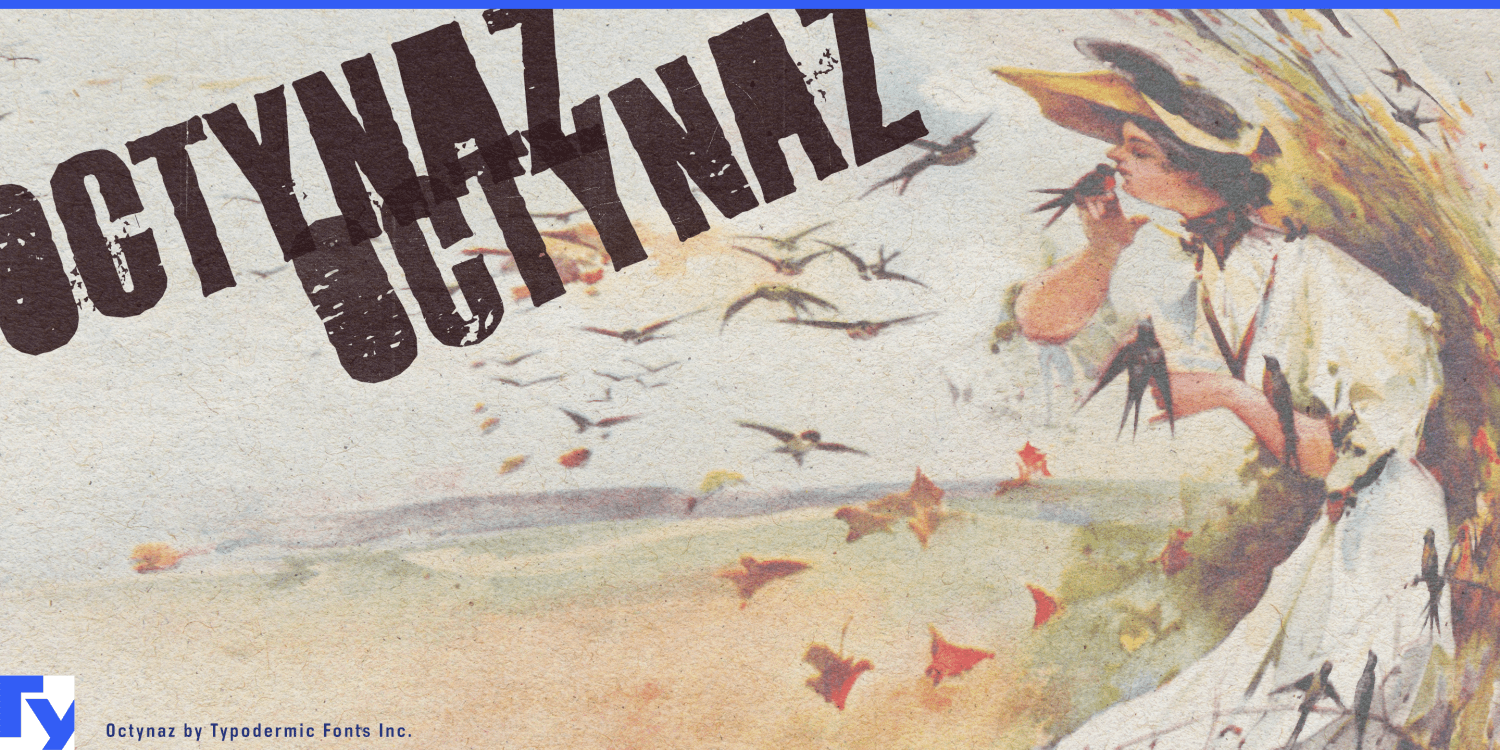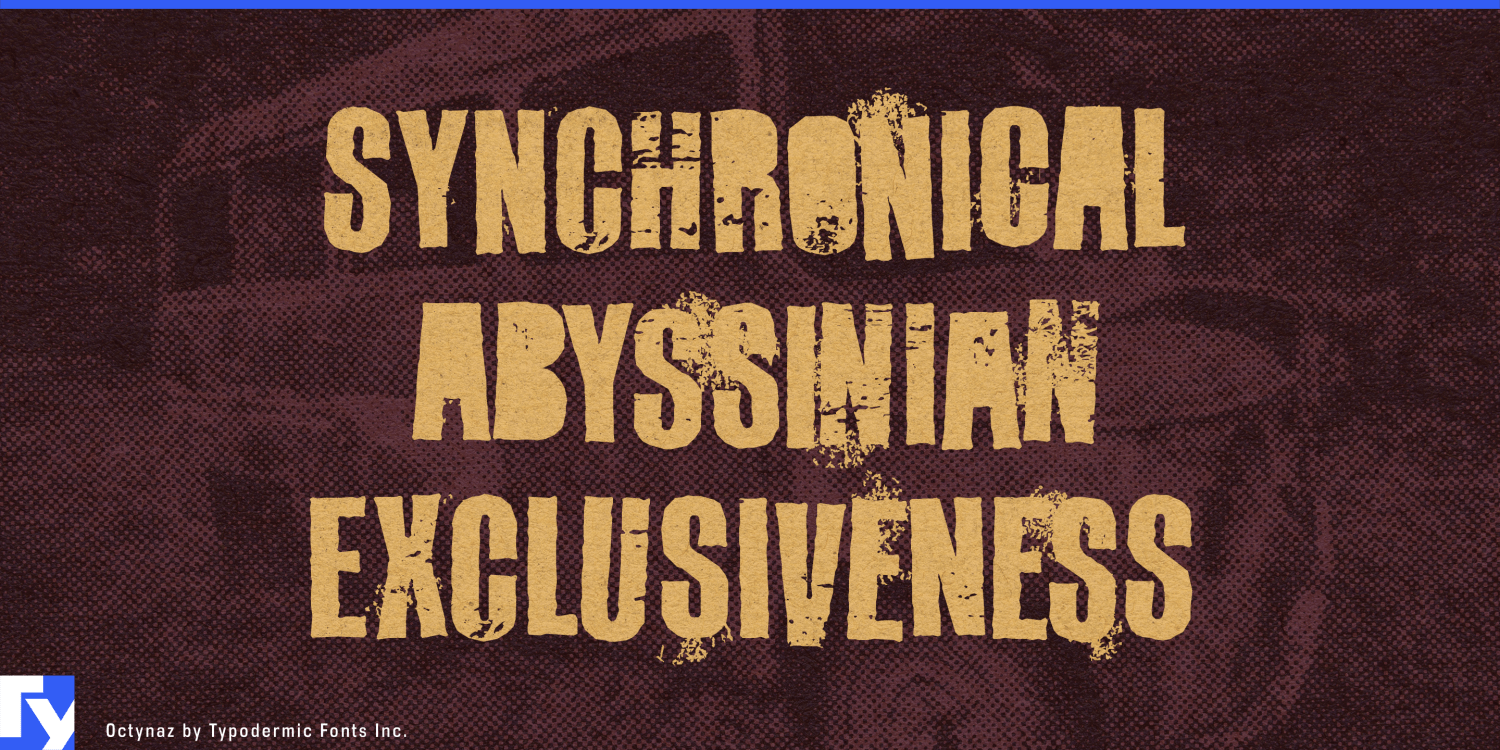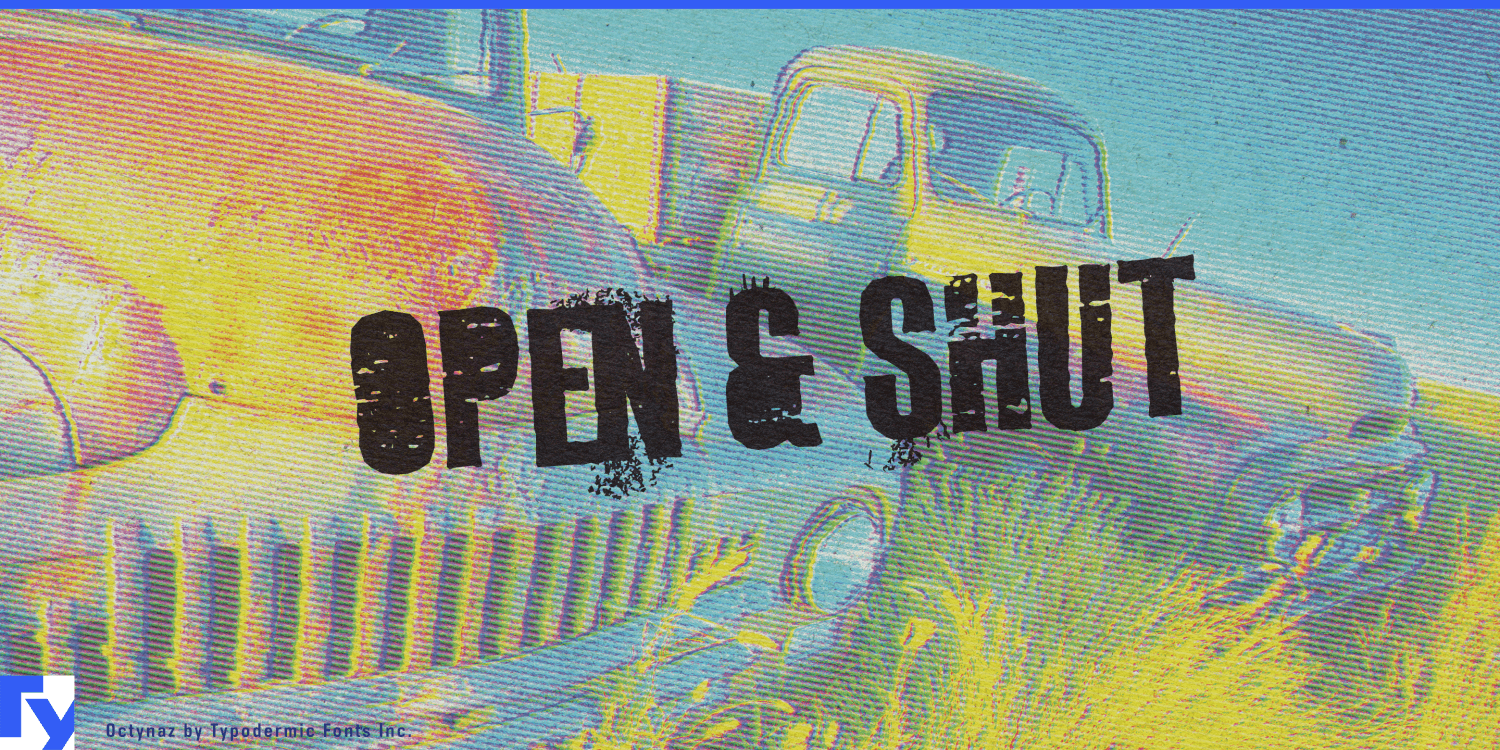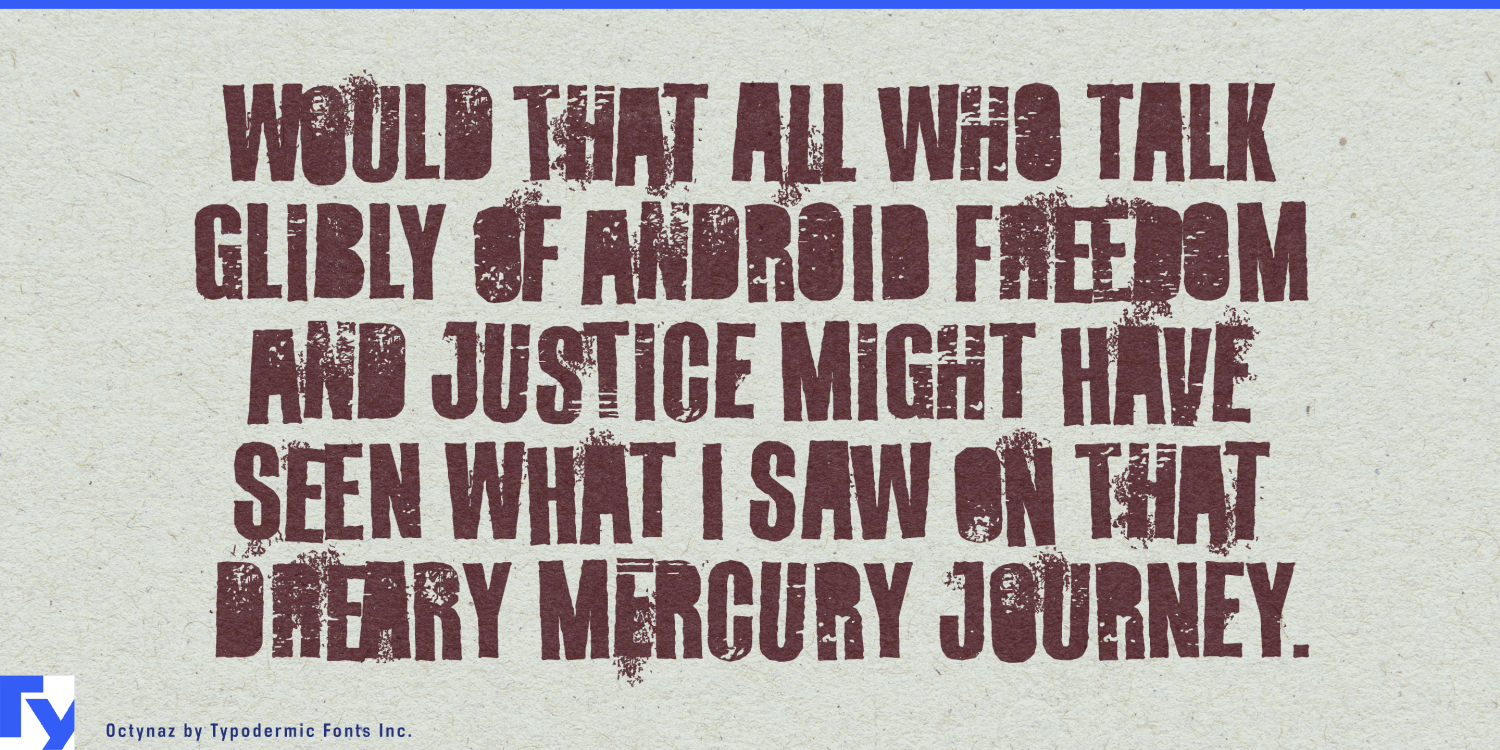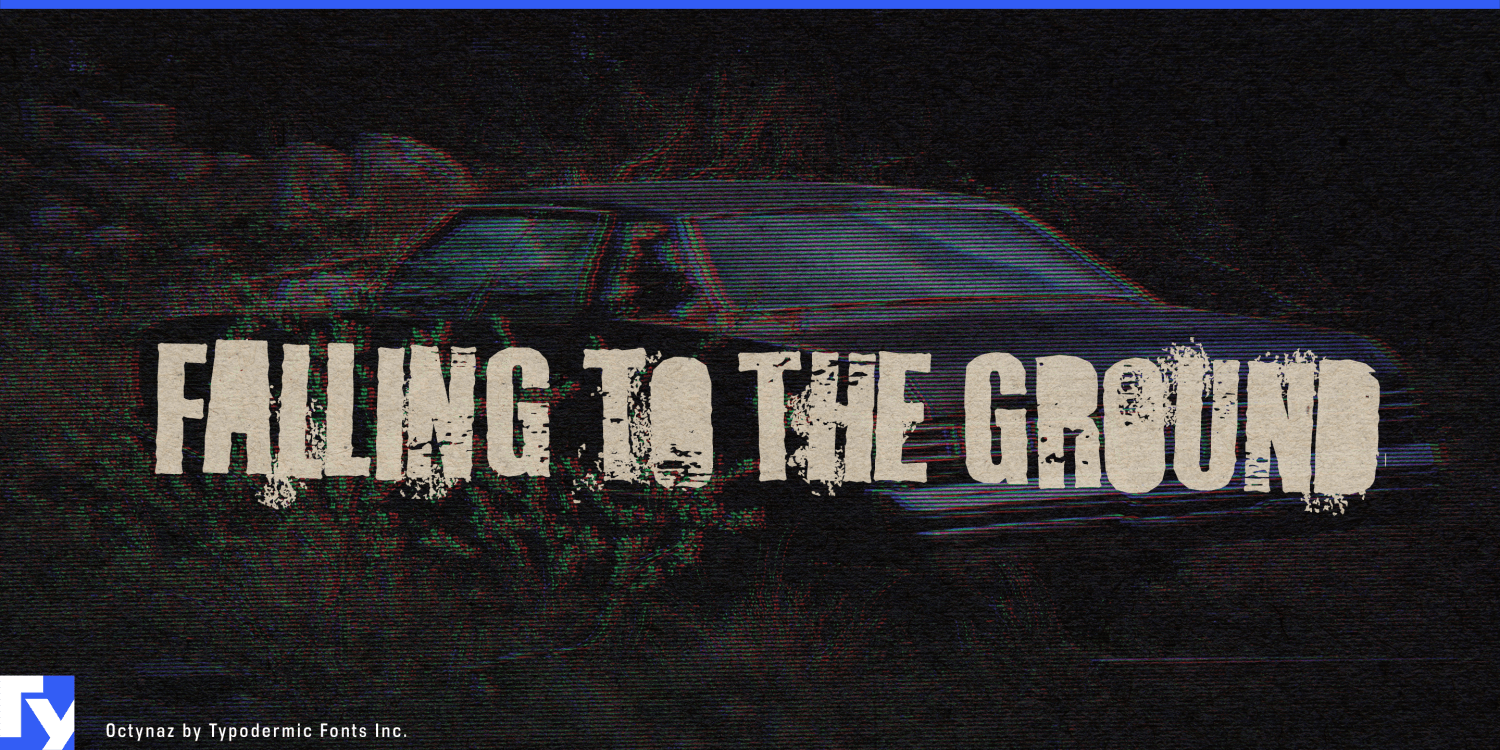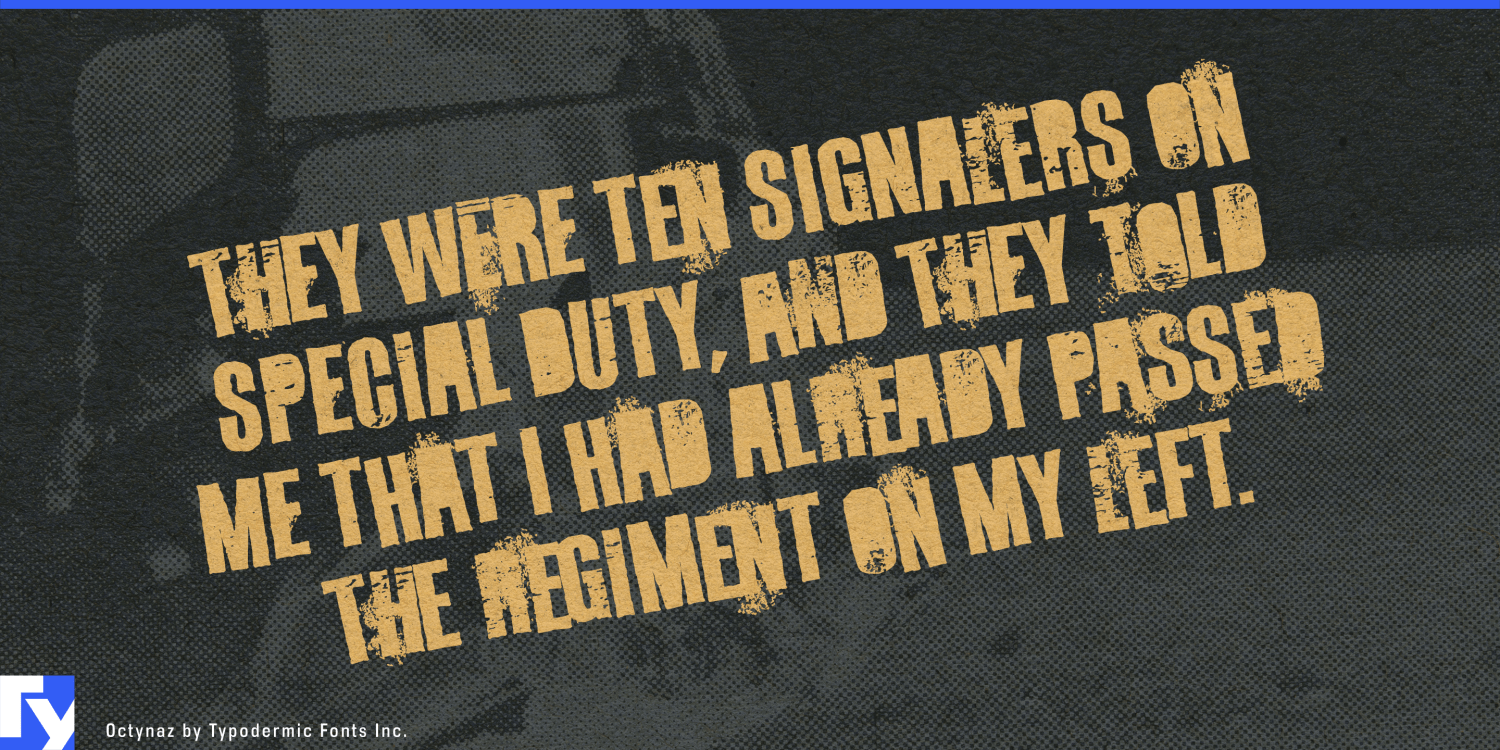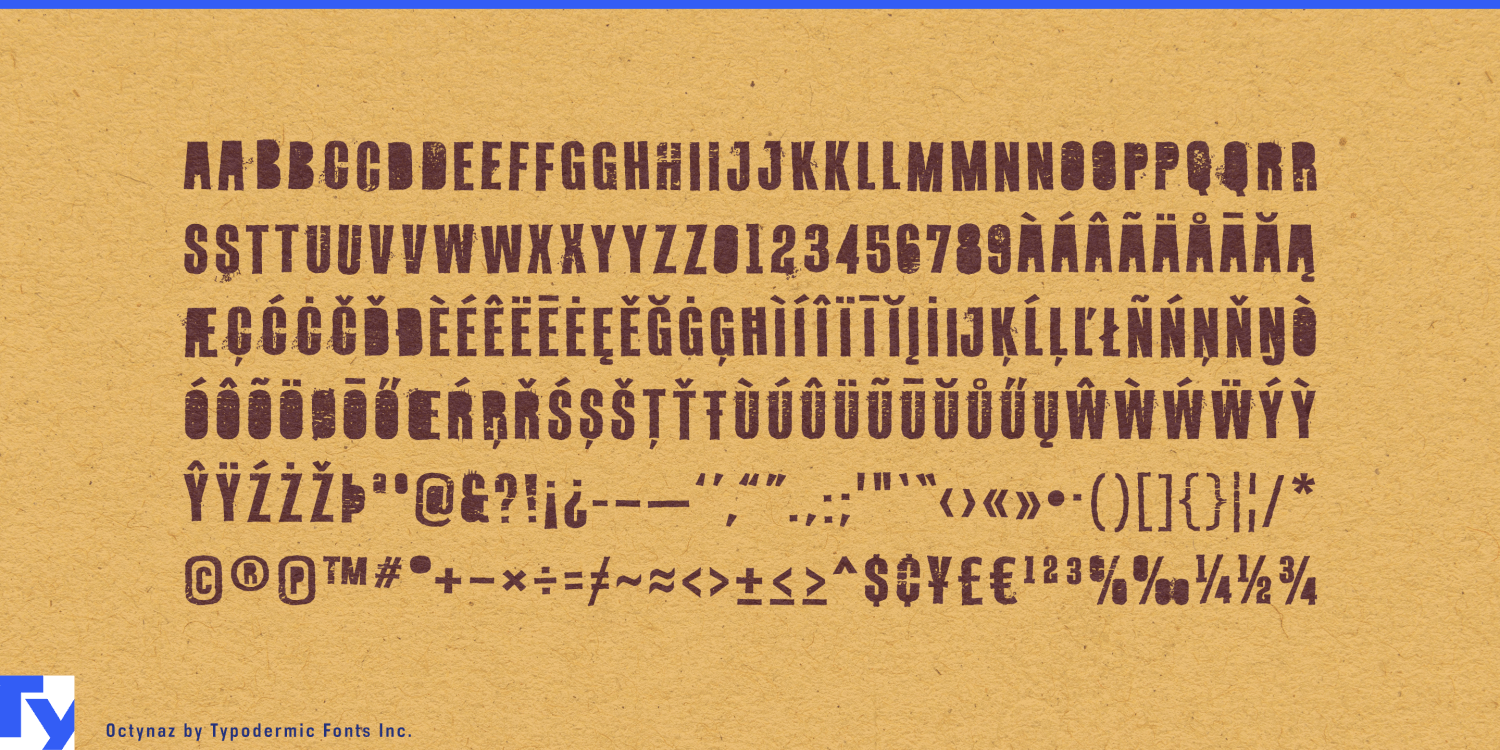
Octynaz
Font Family by Typodermic
In the ash-choked wasteland of tomorrow, where civilization’s remnants cling to survival, a new language of design emerges. Octynaz is a visual manifesto for a world torn asunder, a beacon of defiant communication in the face of annihilation.
Carved from the wreckage of the old world, Octynaz wears its scars proudly. Its severe damage and shattered counters aren’t flaws—they’re battle wounds, testaments to resilience in a landscape where perfection is a long-forgotten luxury. But like the survivors who roam this desolate new reality, Octynaz finds strength in its brokenness. In the hands of those who understand its power, Octynaz becomes a force of nature. OpenType-aware programs unleash its full potential, automatically substituting bespoke pairs to create a typography that’s as unpredictable and gritty as the world it inhabits. Each word becomes a visual assault, demanding attention in a realm where distraction means death.
Octynaz speaks the splintered tongues of the post-apocalyptic global village. Supporting most Latin-based European writing systems, it ensures your message cuts through the static, whether you’re rallying the clans of the Scottish Highlands or uniting the tribes of the Sahara. It’s a typeface that transcends borders reduced to rubble, carrying your words across the wastelands with raw, uncompromising power. In a design landscape littered with the corpses of pre-fall aesthetics, Octynaz stands tall. It’s for brands born in the crucible of chaos, for messages that don’t just communicate—they ignite revolutions. From jerry-rigged radio broadcasts to brutal warlord manifestos, Octynaz speaks with the authority of one who’s stared into the abyss and spat in its eye.
Choose Octynaz and watch your designs become legends in the oral histories of the new dark age. Because in the irradiated badlands of post-apocalyptic typography, Octynaz doesn’t just survive—it thrives, a visual howl of defiance against the dying of the light.